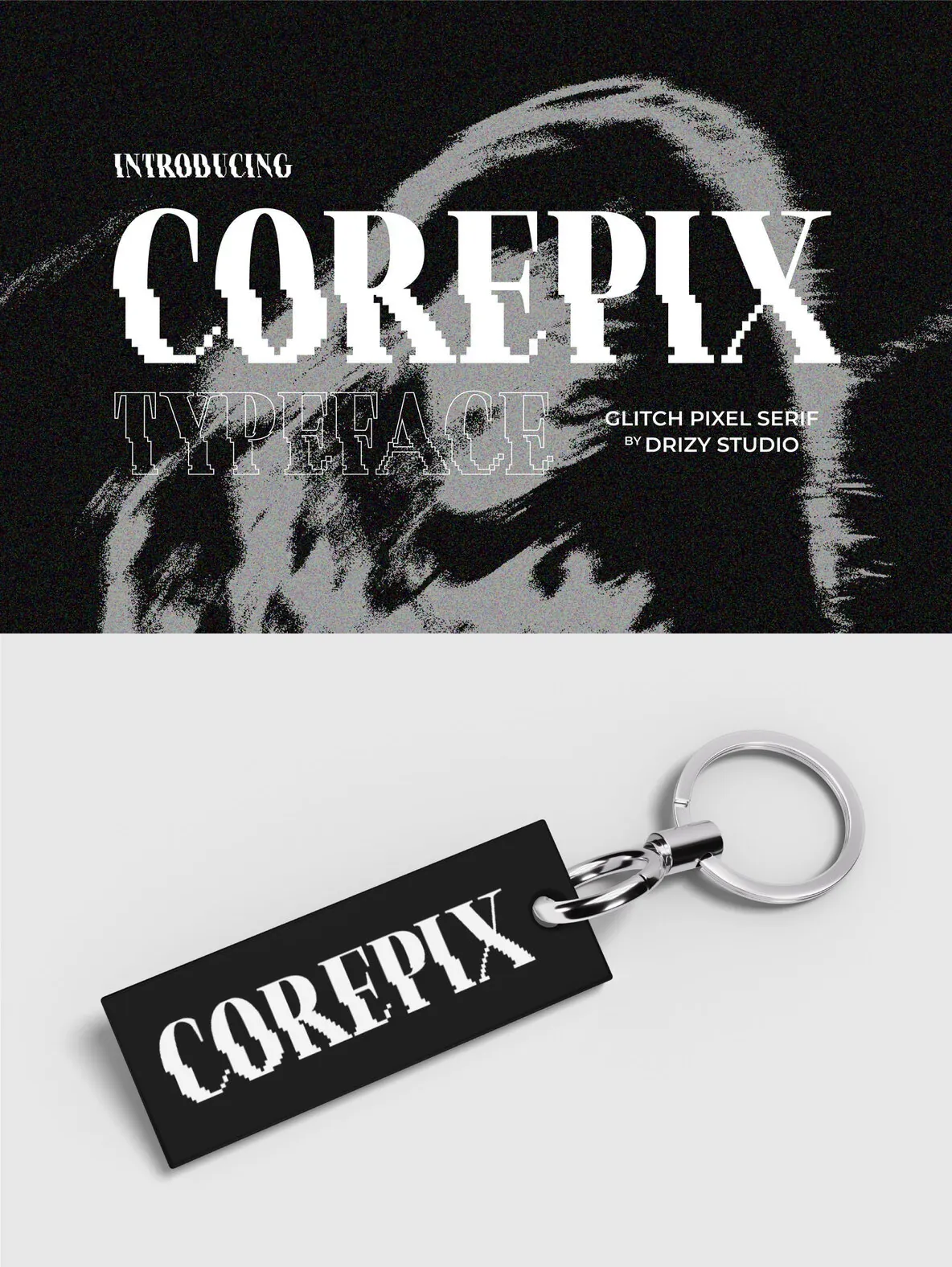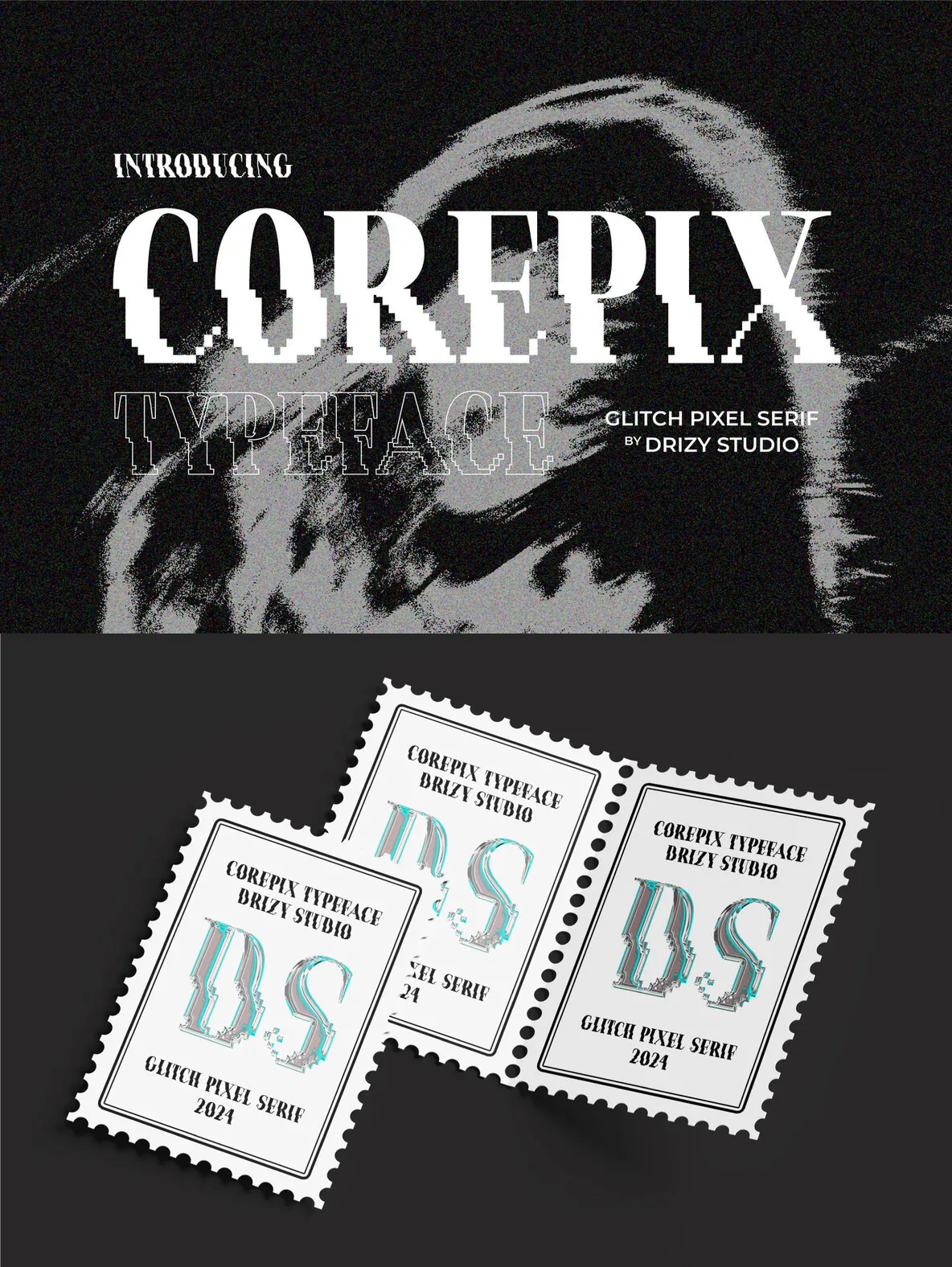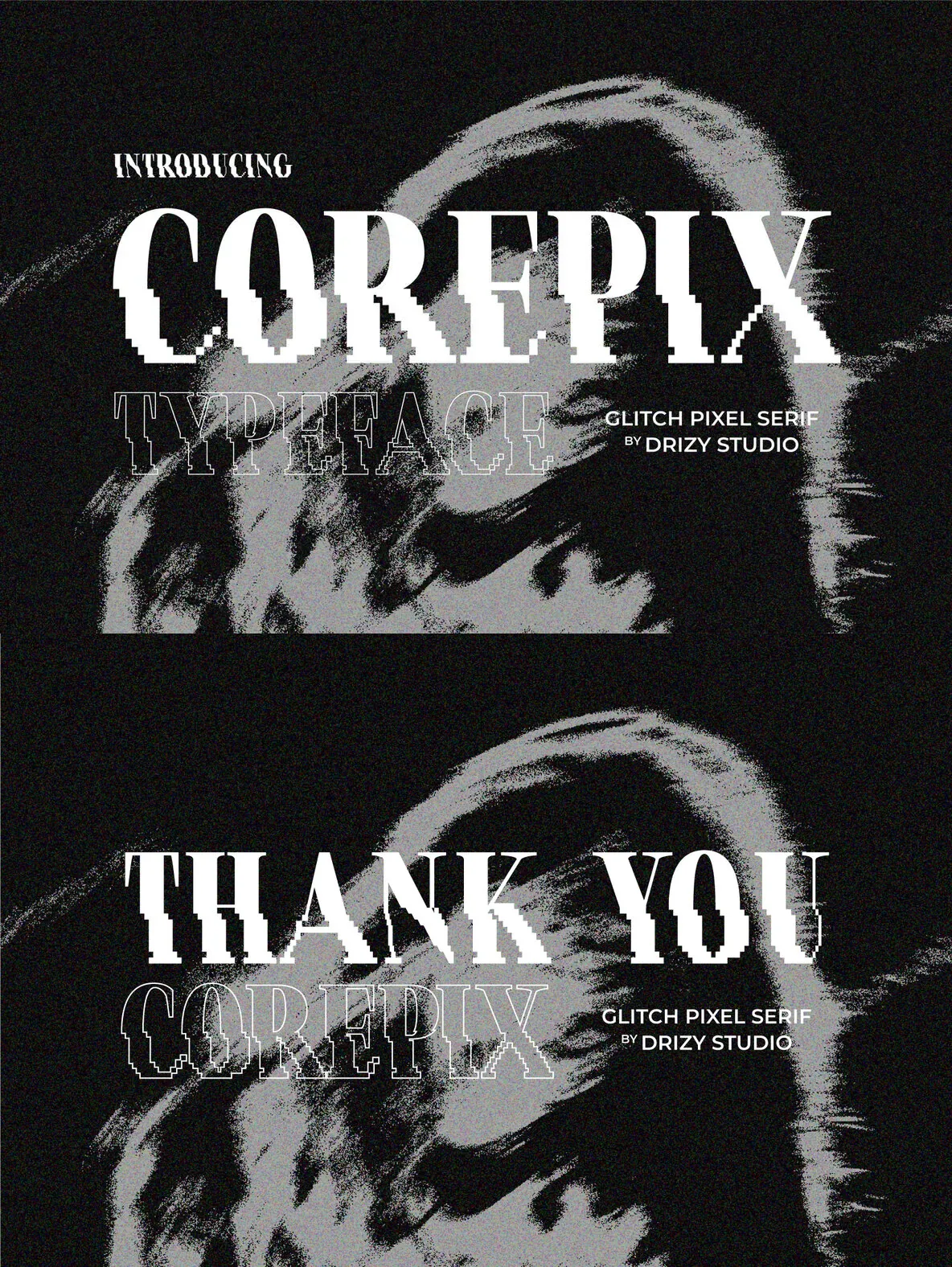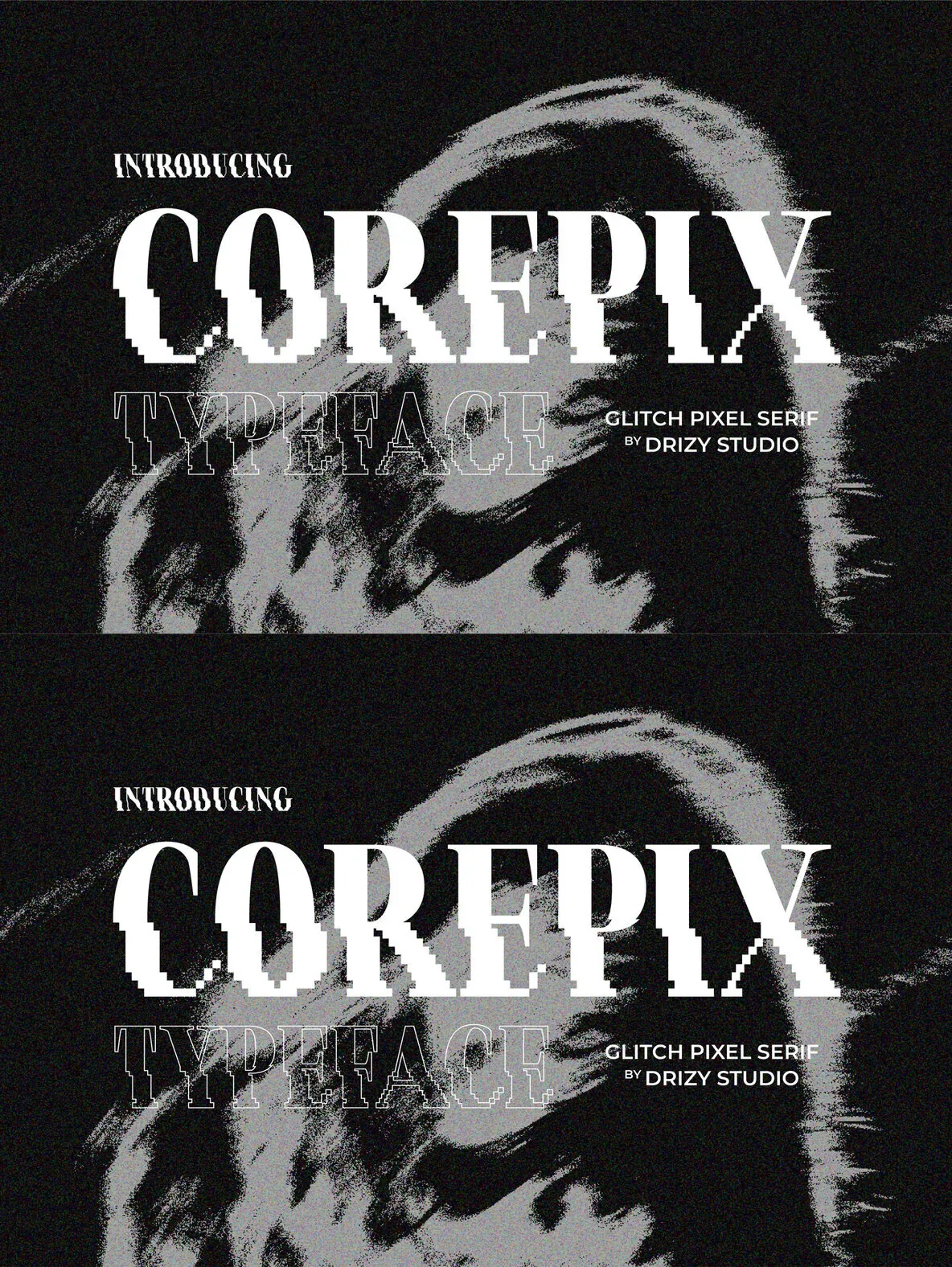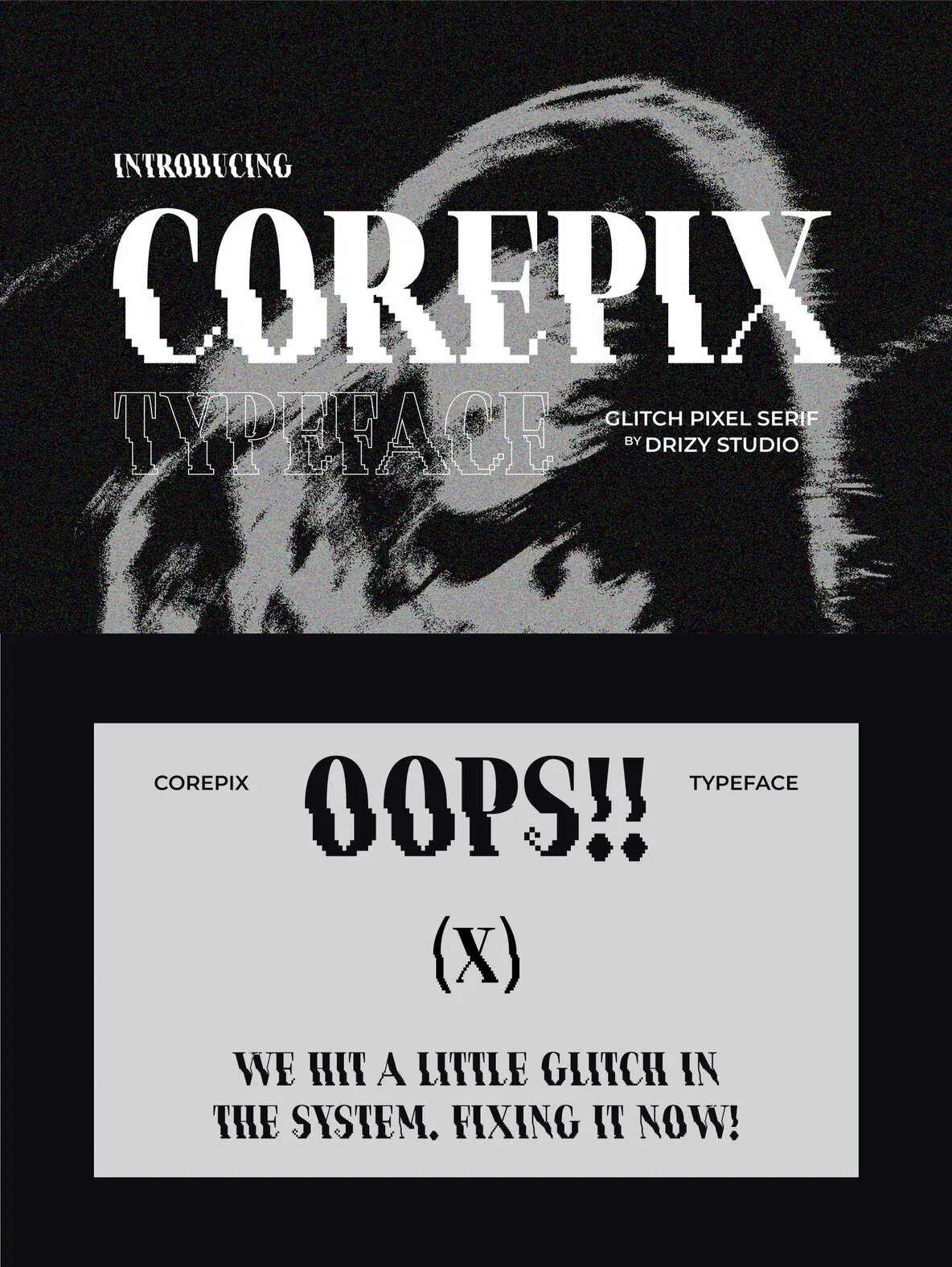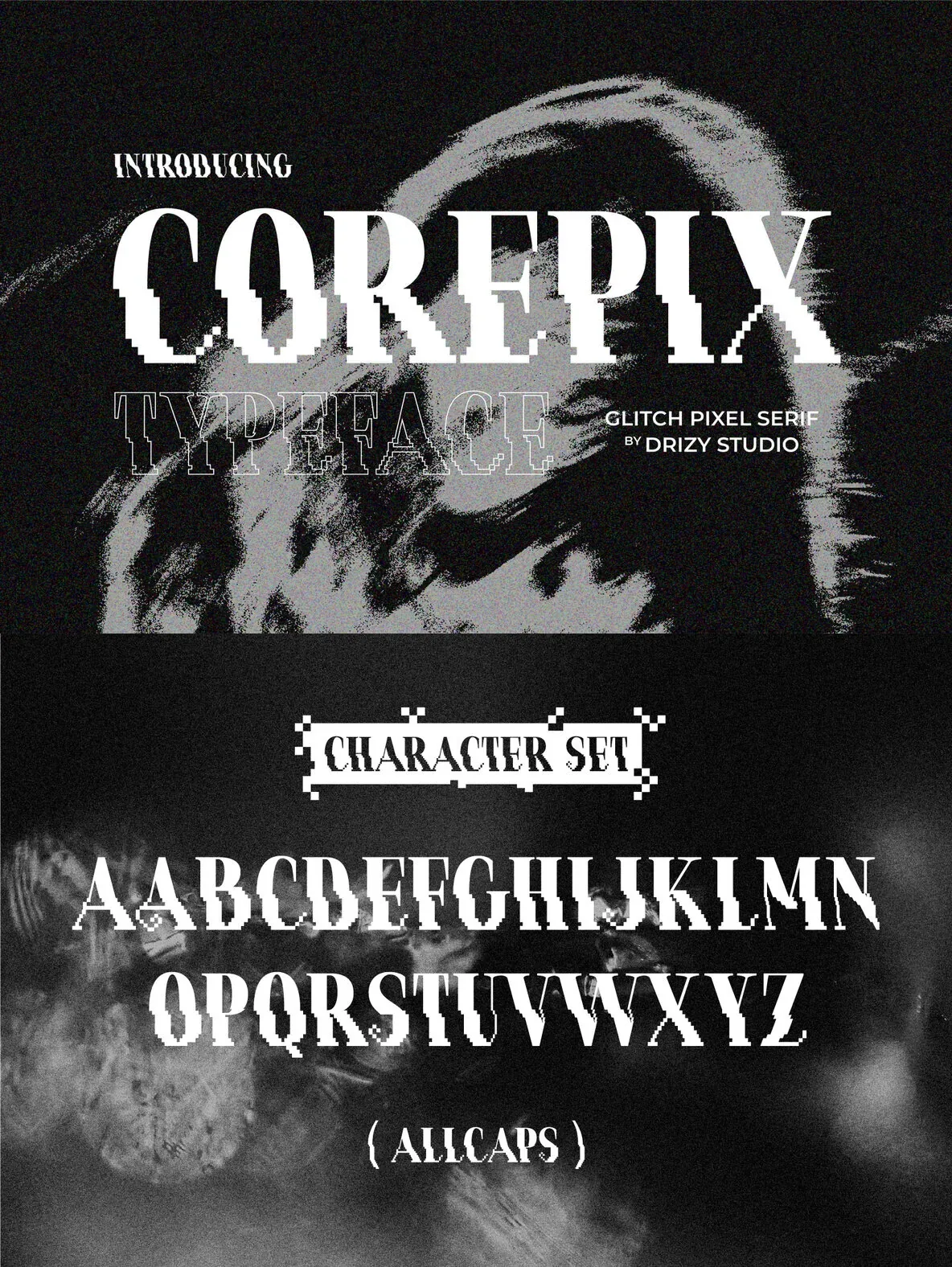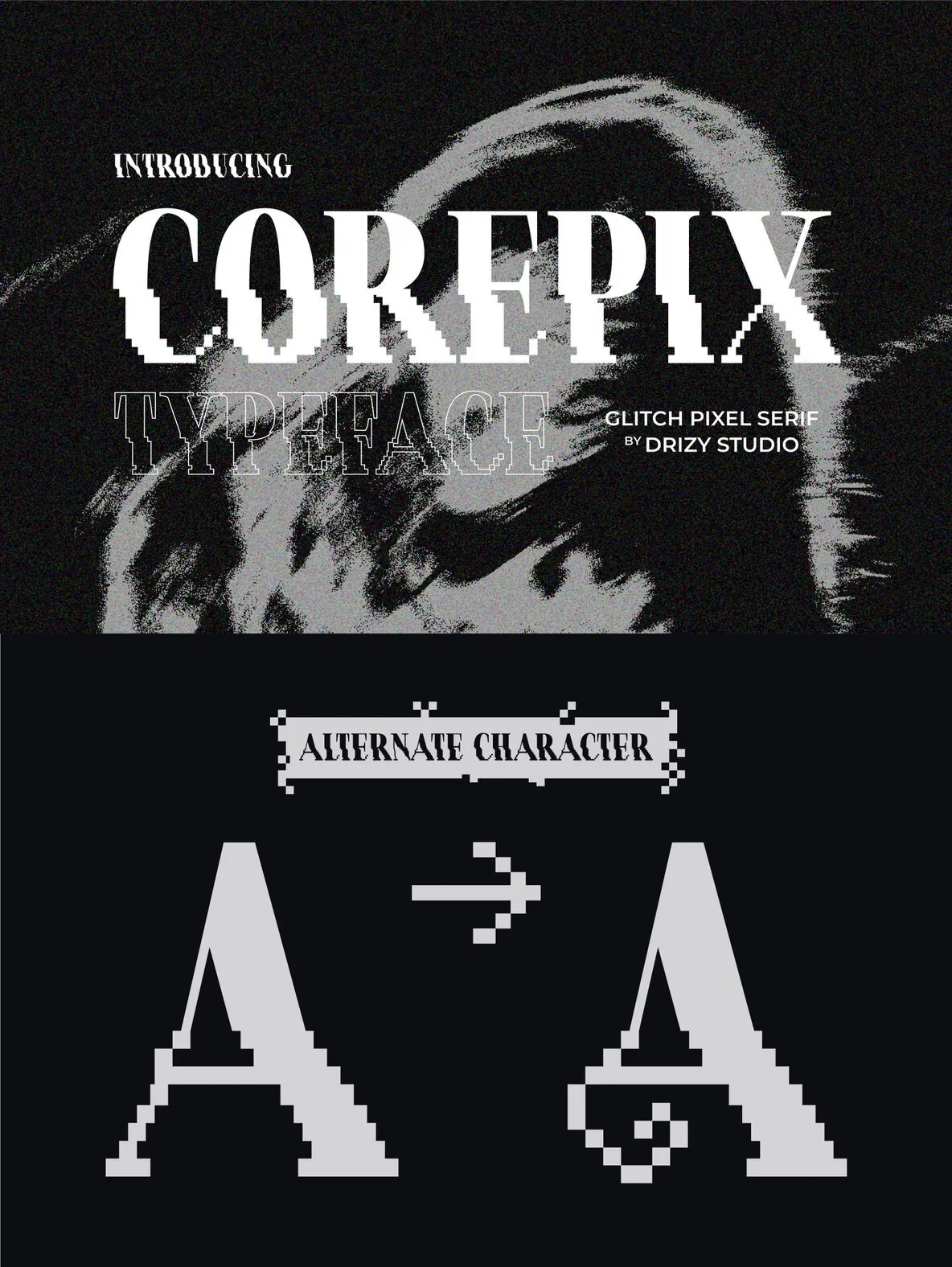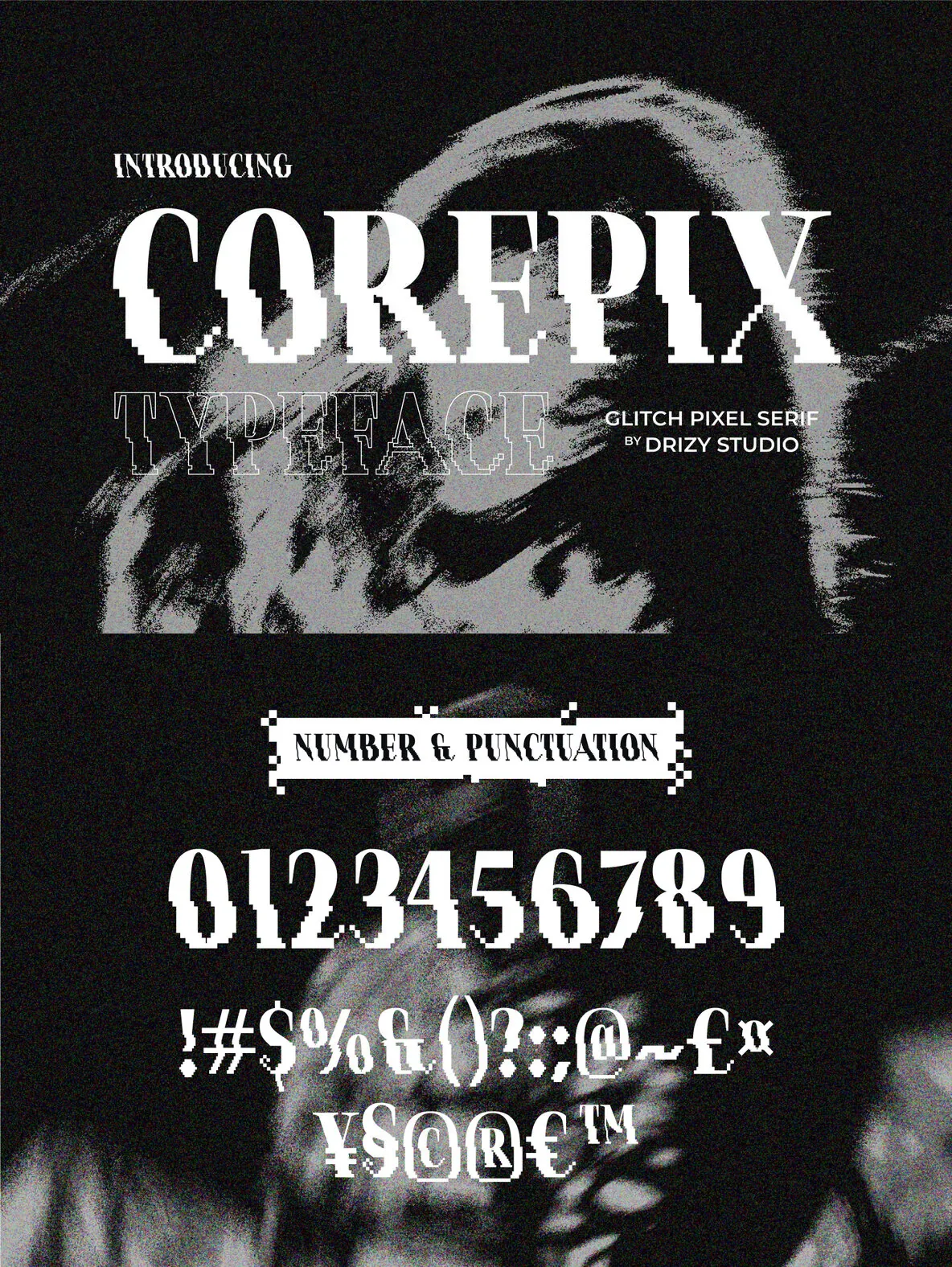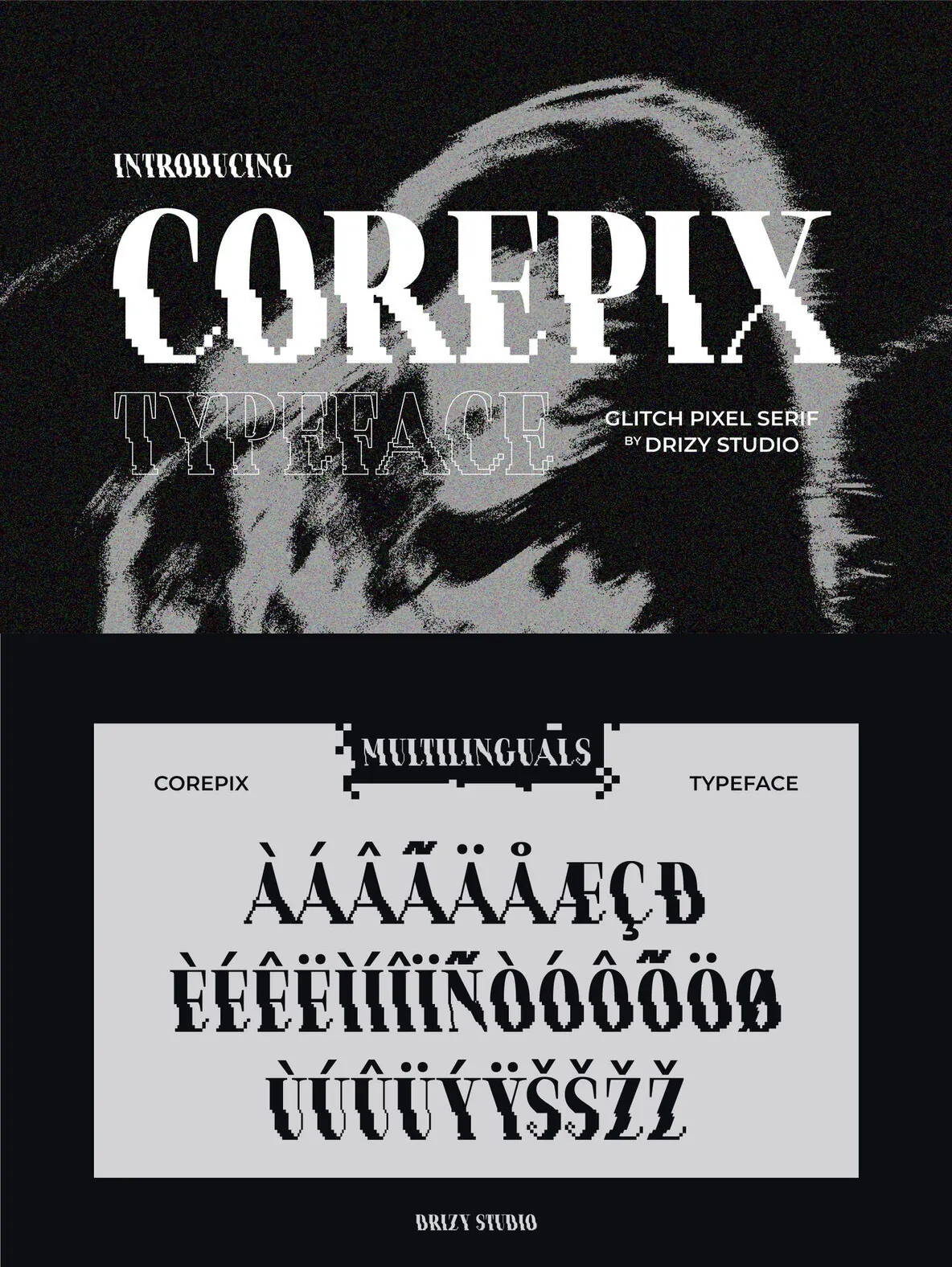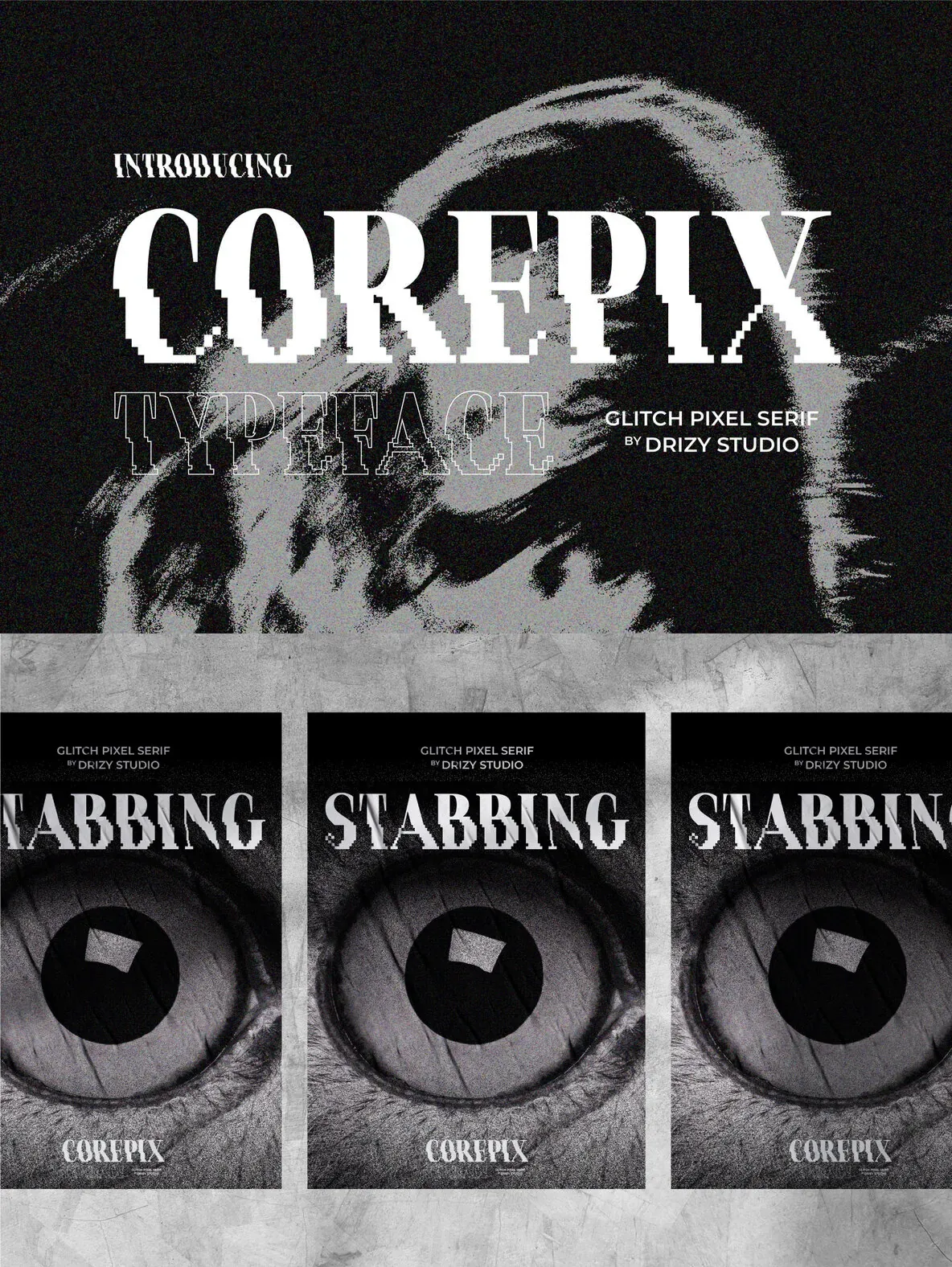
Corepix Font
Corepix — Serif Under Digital Static
Corepix is a glitch pixel serif font with a bold, contemporary presence. It brings together the classic elegance of serif letterforms with a modern layer of pixel-based distortion, giving the typeface a sharp visual tension that feels both familiar and digital.
The Collide – Experimental approach gives Corepix its striking character. This typeface suits projects that need strong typography with a distinctive edge, from graphic design and digital artwork to branding concepts that call for a memorable, modern serif font with glitch aesthetics.